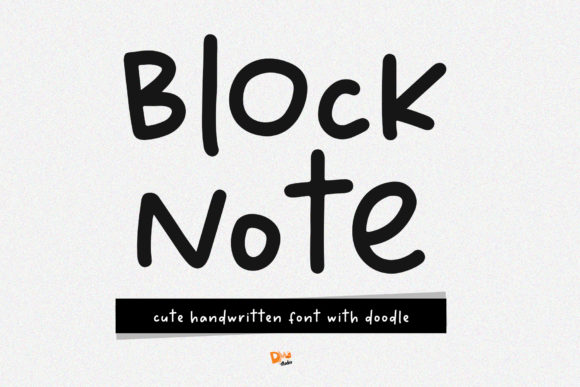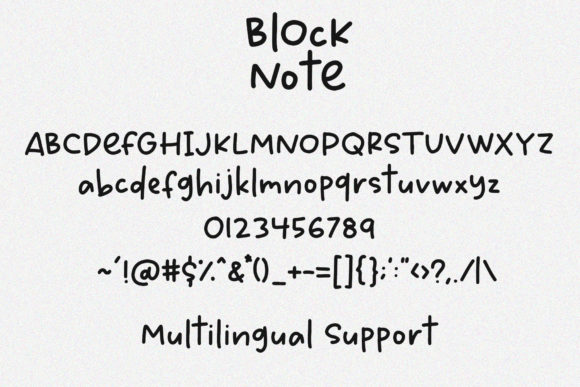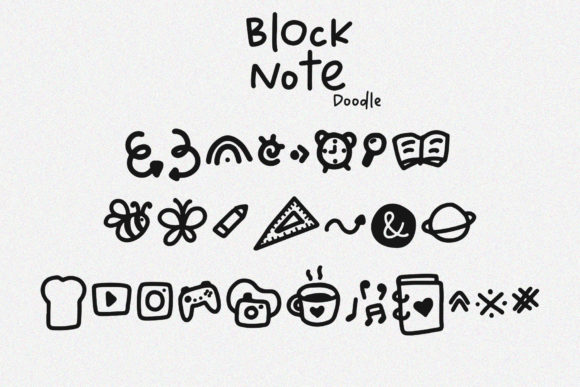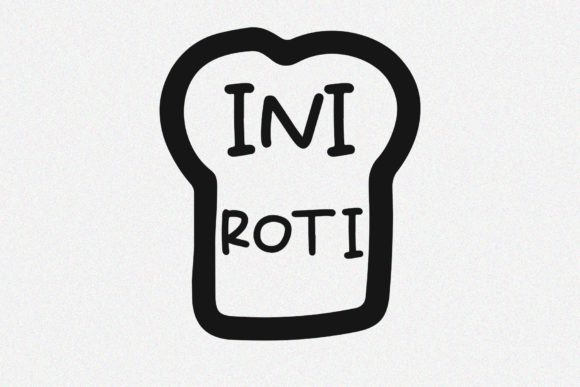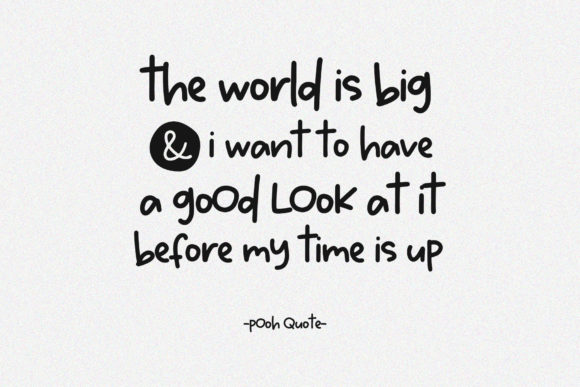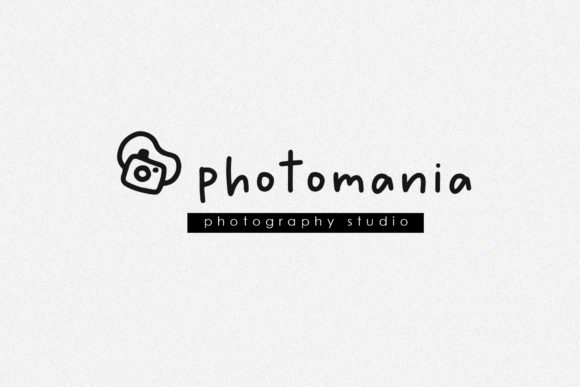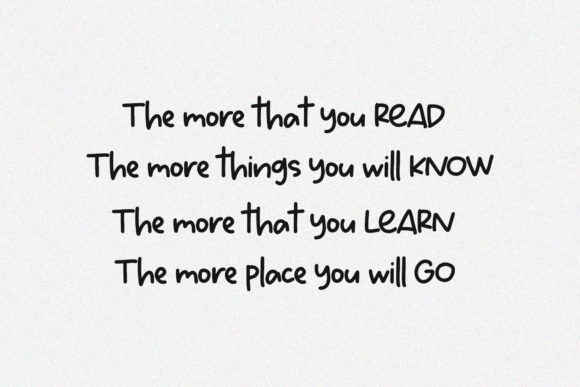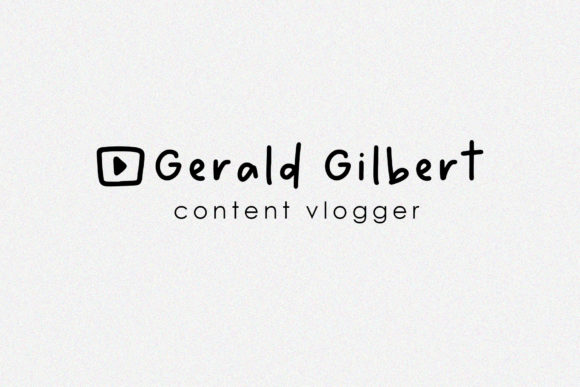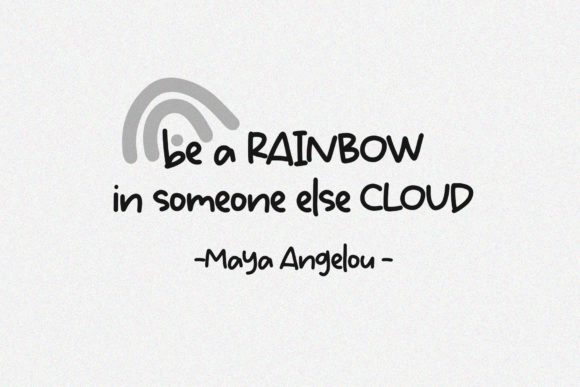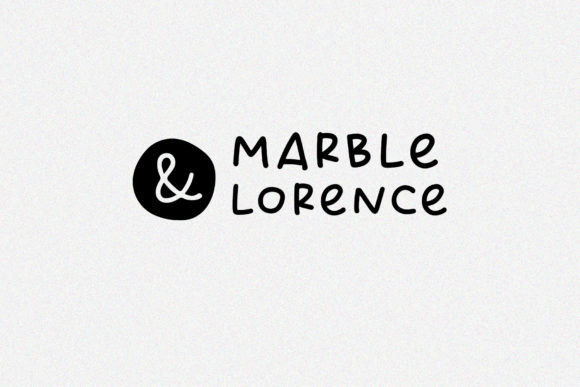
Block Note Font
About Block Note Font
Block Note is a warm and friendly handwritten font. This font is the perfect fit for all of your logos, branding, social media, and crafty DIY projects.